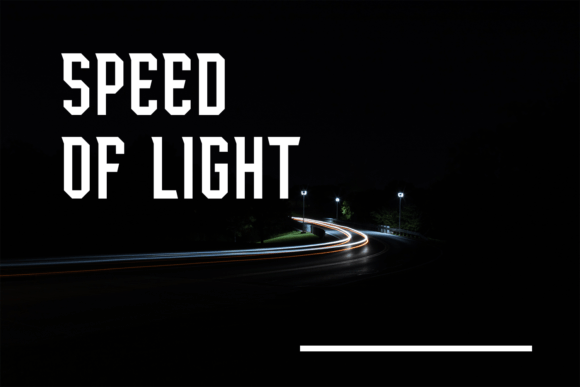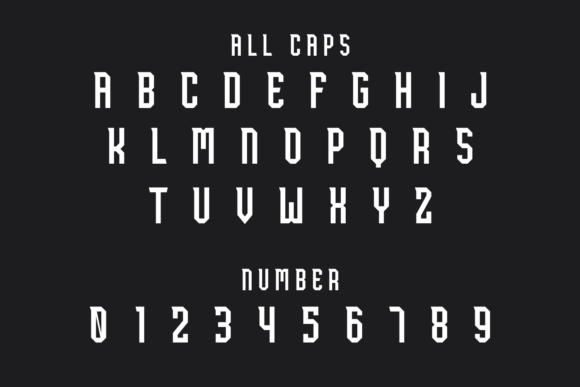
Unleash Your Creativity with the Cargam Font
Have you ever been stuck in a creative rut, searching for that one font that will bring your design to life? I know I have. It’s that moment when you’re pouring your heart and soul into a project, and you just can’t seem to find the perfect font to tie everything together. That’s when the magic happens, and you stumble upon a gem like the Cargam Font.
This beautifully crafted display font is more than just a pretty face – it’s a game-changer. With its unique details and clean lines, the Cargam Font has the potential to elevate any creation, whether it’s a graphic, a logo, or even a social media post. As a designer, you know how valuable it is to have a versatile font in your arsenal, and the Cargam Font is sure to become your new go-to.
So, what are you waiting for? Dive into the world of Cargam Font and discover a whole new level of creative possibilities.
Cargam Font Key Features
- Font Family: Cargam Font is a sans-serif font family designed for modern and clean typography.
- Unique Characteristics: Cargam Font features a unique blend of modern and industrial elements, with a focus on legibility and readability.
Cargam Font Review
Cargam Font is a unique and eye-catching font that’s perfect for making a statement. ✨ One thing that works really well is its versatility – it can be used for a wide range of applications, from logos and branding to digital products and print materials. ✨ The font’s bold and modern feel makes it a great choice for creating a strong visual identity.
Another great feature of Cargam Font is its customizability. It comes with a range of variations, including bold, italic, and condensed versions, which gives you plenty of options for creating a unique look. ✨ The font also works well with a variety of colors and backgrounds, making it easy to integrate into your design.
While Cargam Font is a great choice for many applications, there are a few limitations to consider. ⚠️ One of the main issues is that the font can be difficult to read in smaller sizes, which may limit its use in certain contexts. ⚠️ Additionally, the font’s bold and modern feel may not be suitable for all types of projects or audiences.
Overall, I would give Cargam Font a solid 4 out of 5 stars. While it’s not perfect, it’s a great choice for designers who want a unique and eye-catching font that’s perfect for making a statement. With its versatility, customizability, and modern feel, it’s definitely worth considering for your next design project.
- ✨ Versatile and suitable for a wide range of applications
- ✨ Customizable with a range of variations
- ✨ Works well with a variety of colors and backgrounds
- ⚠️ Can be difficult to read in smaller sizes
- ⚠️ May not be suitable for all types of projects or audiences
Tip: Use the Cargam Font for headings to create a bold and modern look.
Tip: Use the Cargam Font in combination with bold lines and shapes to create a dynamic design.
Tip: Use the Cargam Font for titles and headings to create a consistent look throughout your presentation.
The Cargam Font is ideal for:
- Modern and minimalist designs.
- Creating bold and eye-catching headings.
- Adding a touch of sophistication to business materials.
With the Cargam Font, you can create a unique and memorable design that stands out from the crowd.